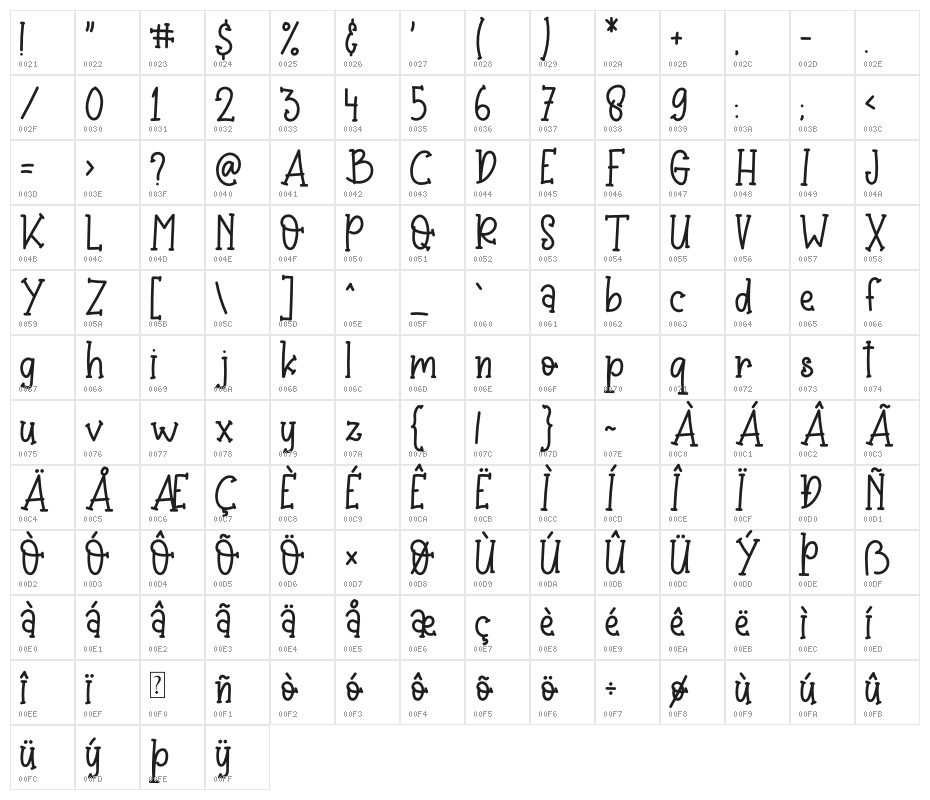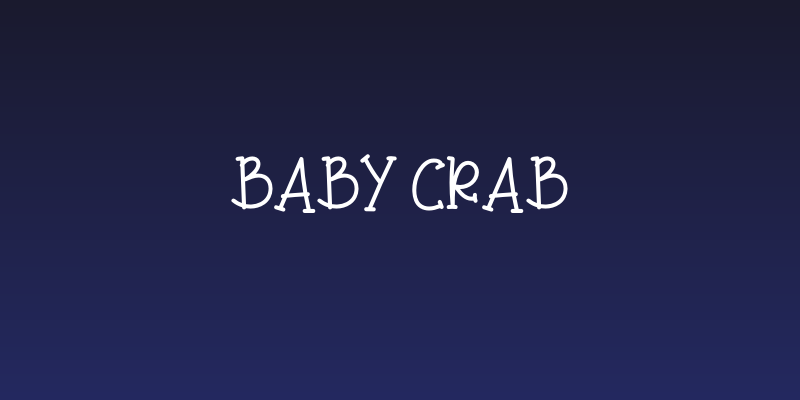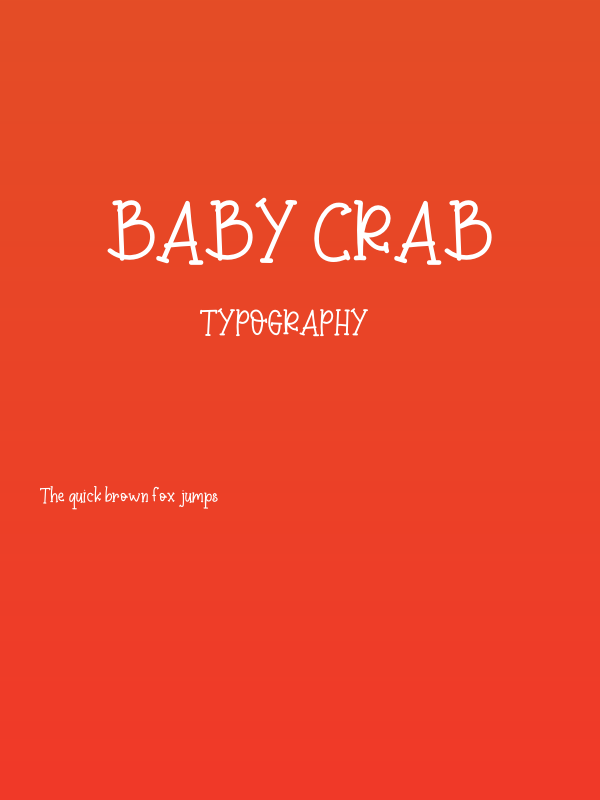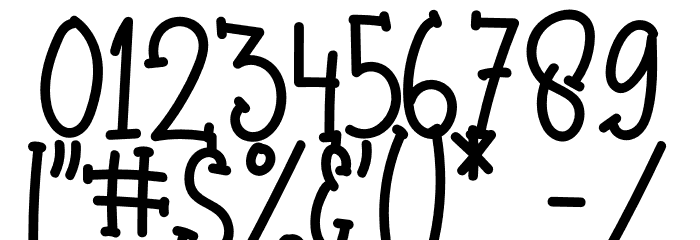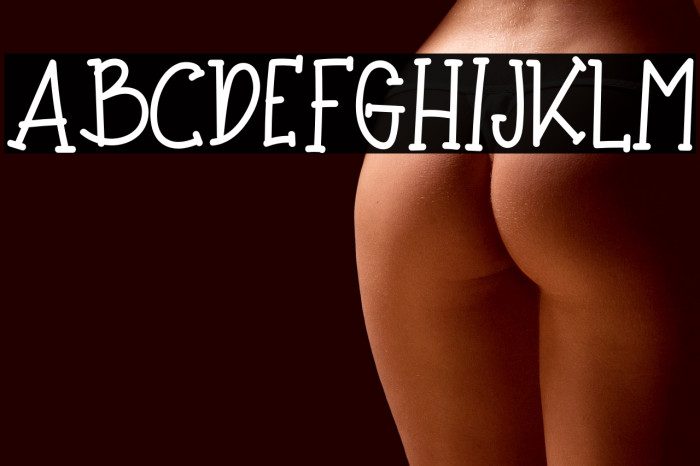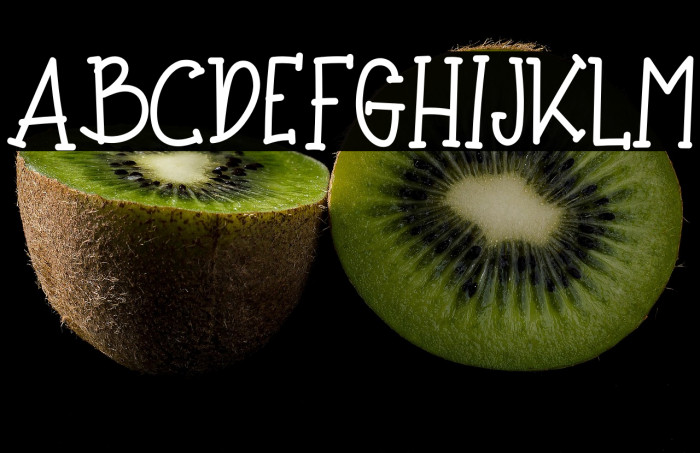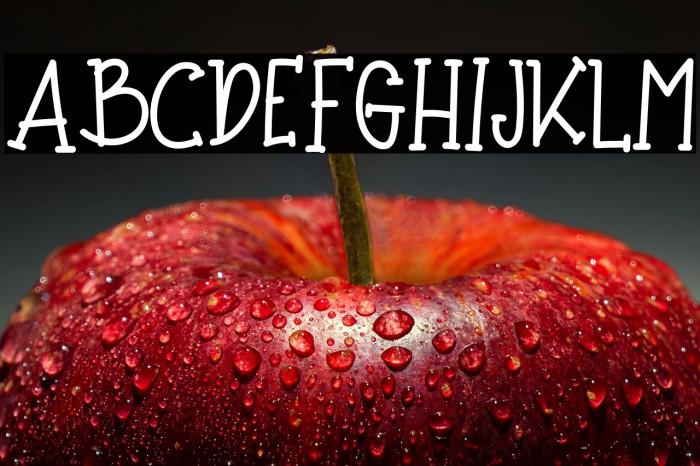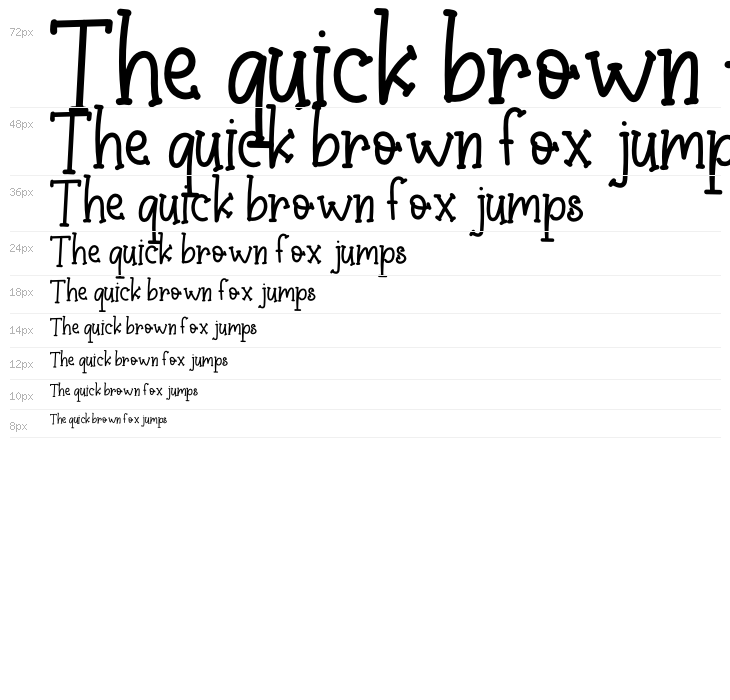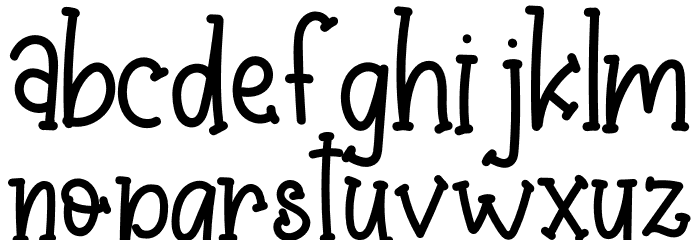
Baby Crab Font
Baby Crab Description
This playful and whimsical font features a handwritten style with a casual, friendly appearance. The letters are slightly irregular, giving it a charming, informal look. The strokes are consistent in width, providing a uniform appearance across characters. The font includes both uppercase and lowercase letters, numerals, and a variety of special characters. Its rounded edges and subtle curves add to its approachable and fun aesthetic, making it suitable for creative and lighthearted projects.
| Proposed Projects | Ideal for children's books, greeting cards, playful branding, and informal invitations. |